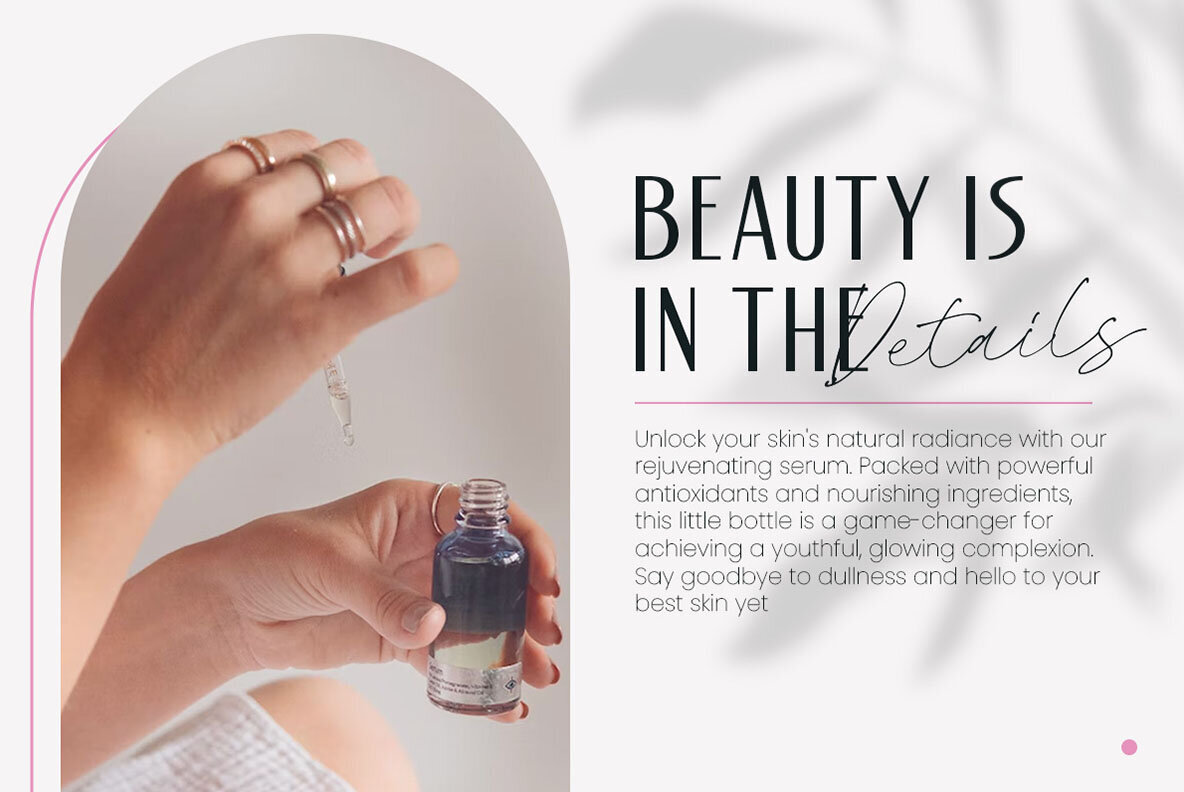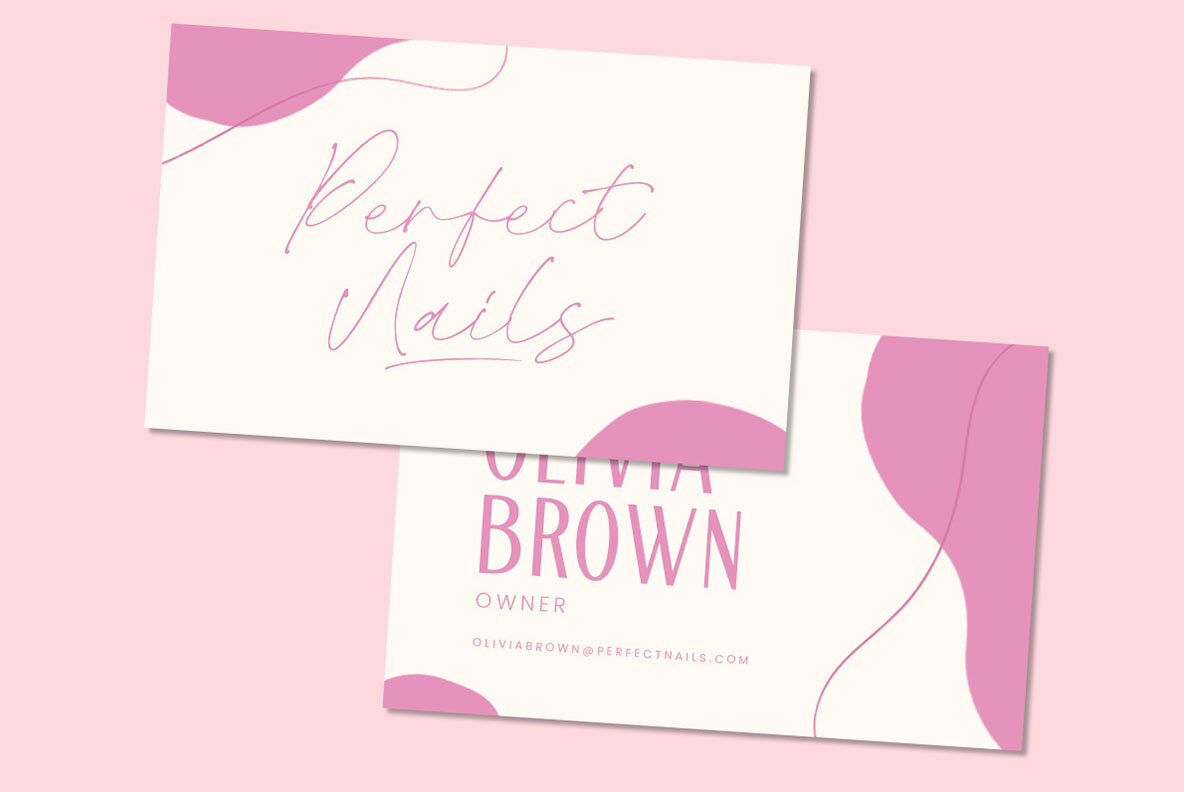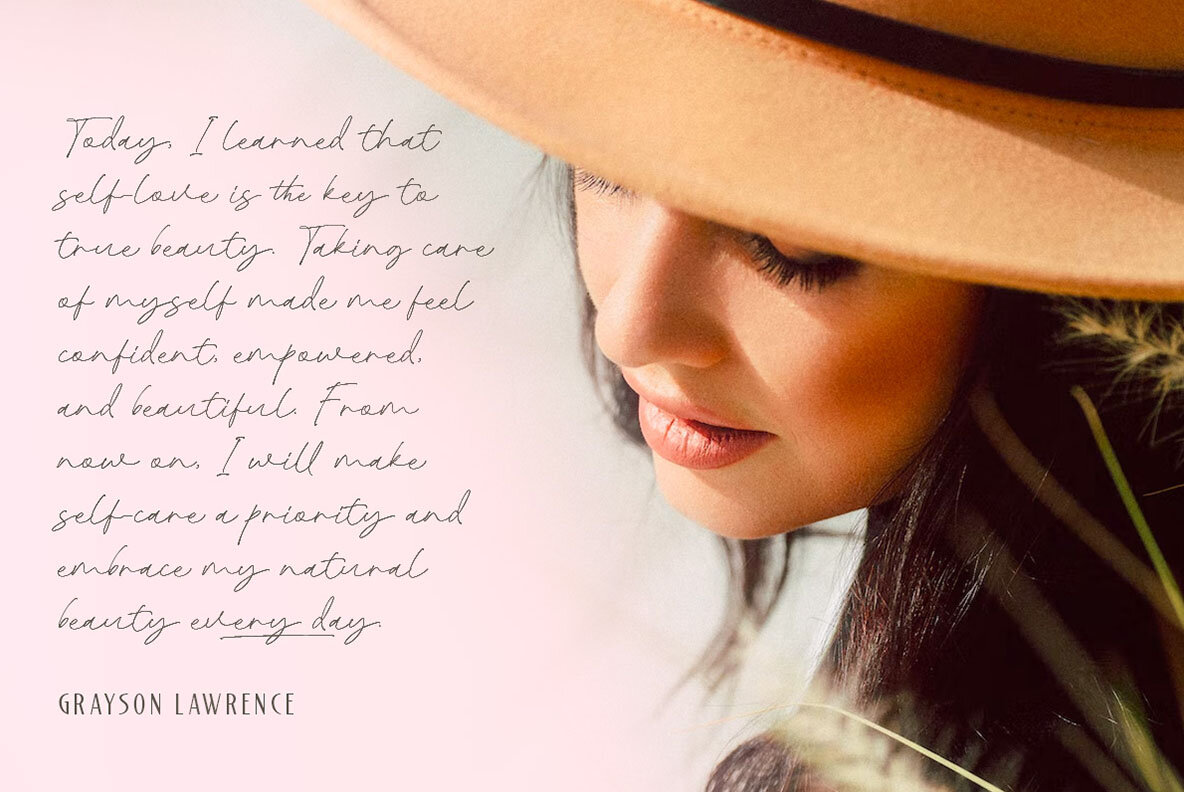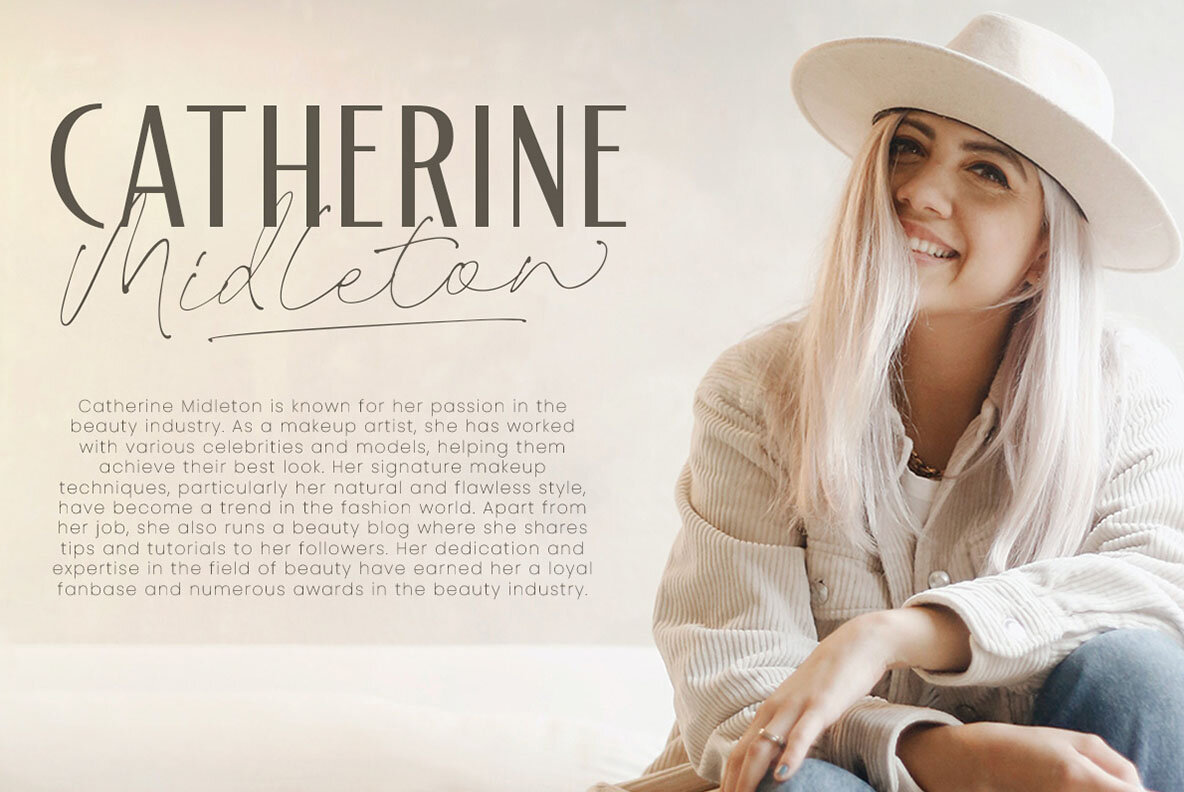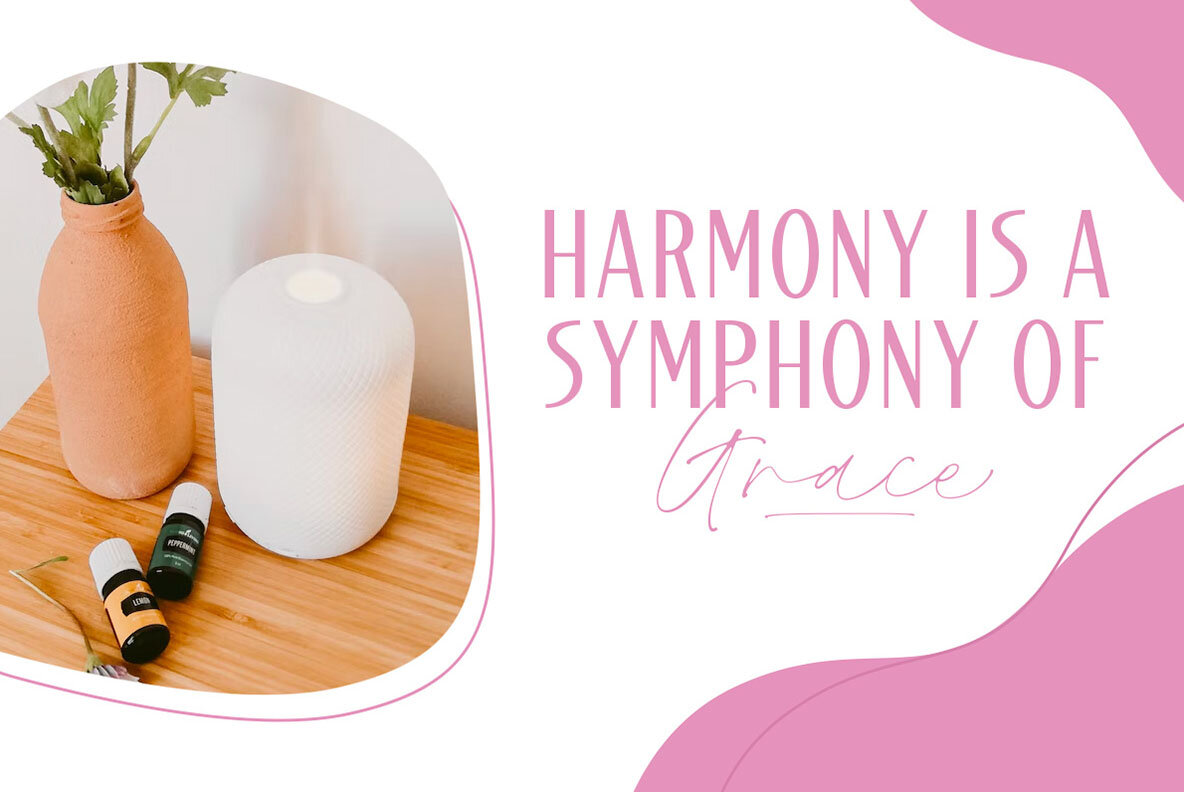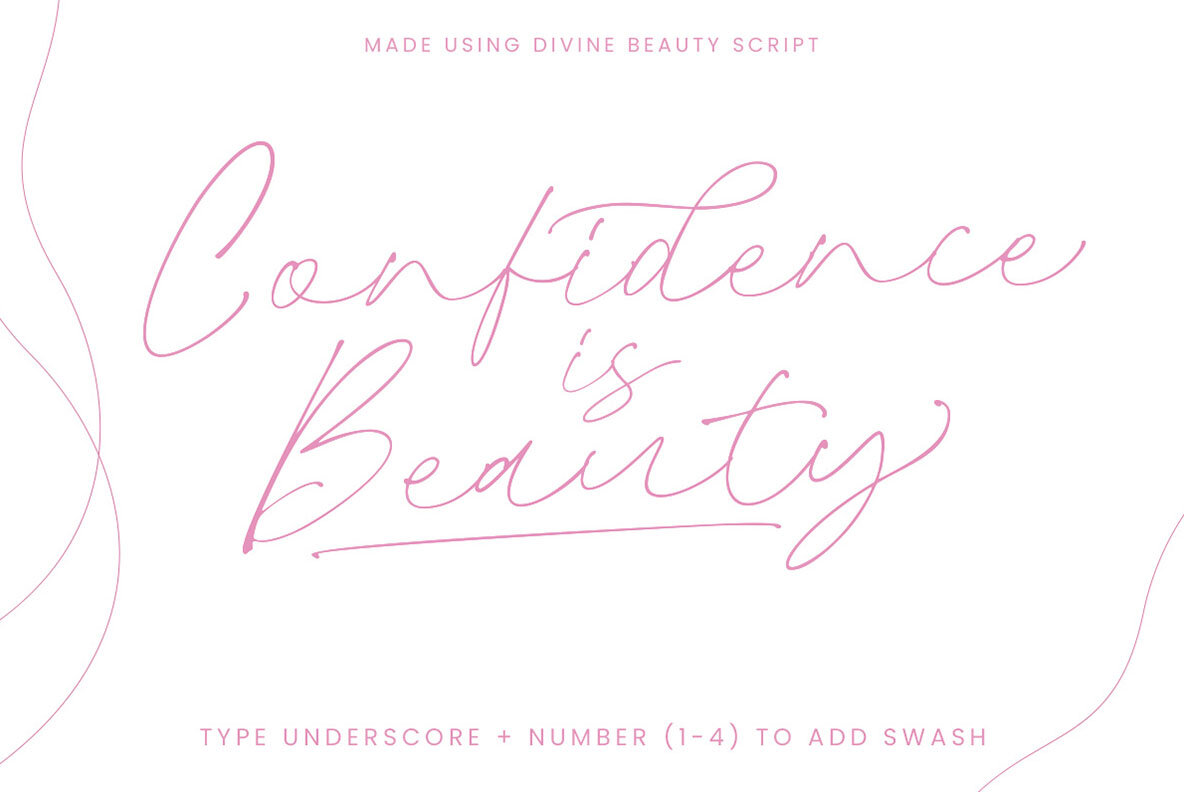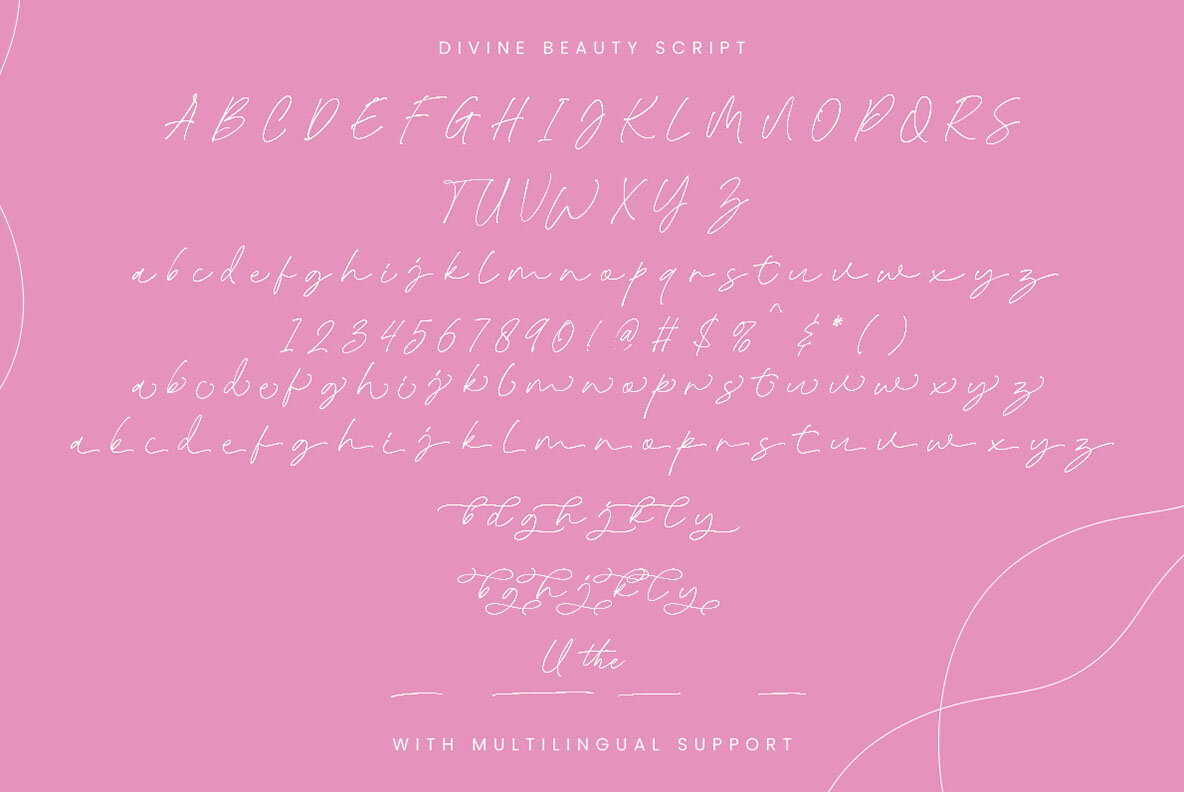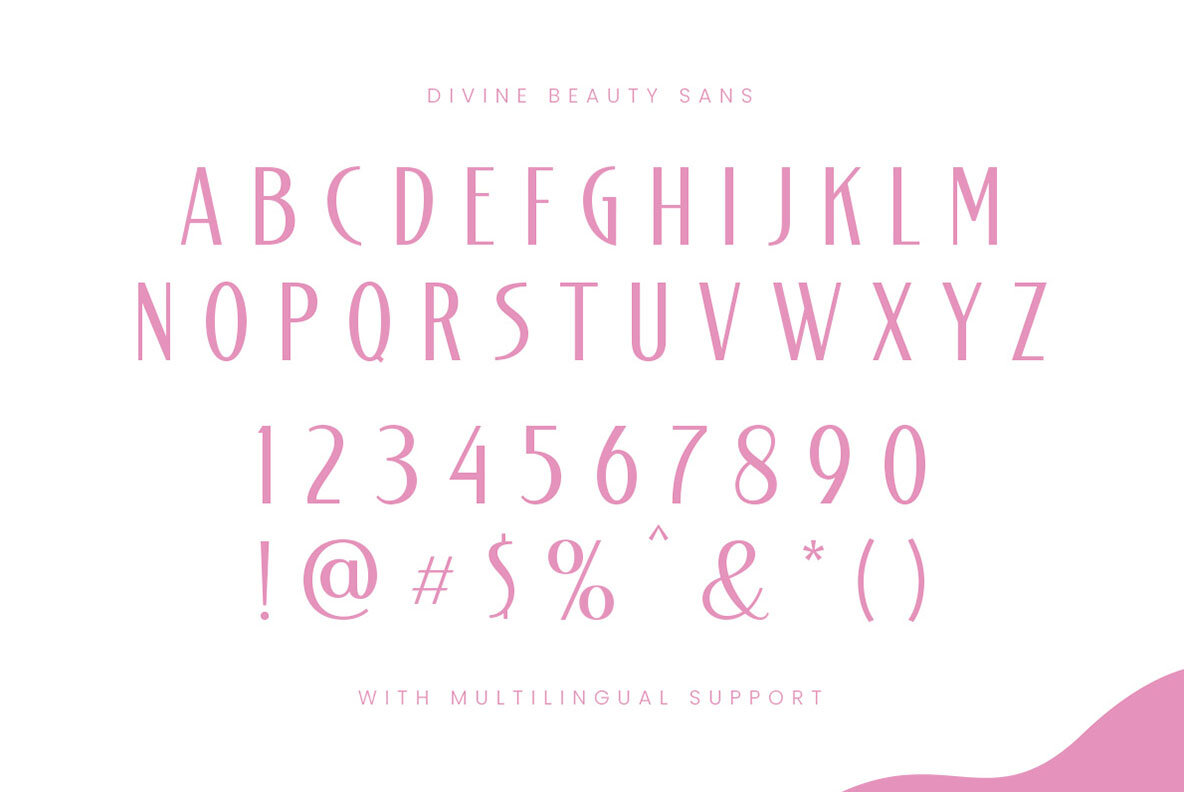
Devine Beauty Font
Devine Beauty font is characterized by its simplicity and modernity. The clean lines and balanced proportions of the sans-serif font complement the elegant curves and flourishes of the serif font, creating a harmonious and visually appealing pairing. Overall, Devine Beauty is a stylish and refined font that is perfect for adding a touch of sophistication to any design, especially in logo, and the other various formal forms such as invitations, labels, logos, magazines, books, greeting / wedding cards, packaging, fashion, make up, stationery, novels, labels or any type of advertising purpose. Features : - Uppercase & lowercase - Numbers and punctuation - Alternates & Ligatures - Multilingual - PUA encoded We highly recommend using a program that supports OpenType features and Glyphs panels like many of Adobe apps and Corel Draw, so you can see and access all Glyph variations.